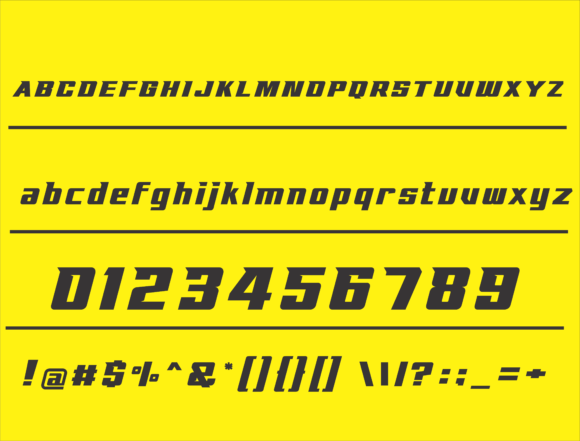
Pro Circuit Font
Pro Circuit is a modern and assertive racing styled display font. No matter the topic, this font will be an incredible asset to your fonts’ library, as it has the potential to elevate any creation.